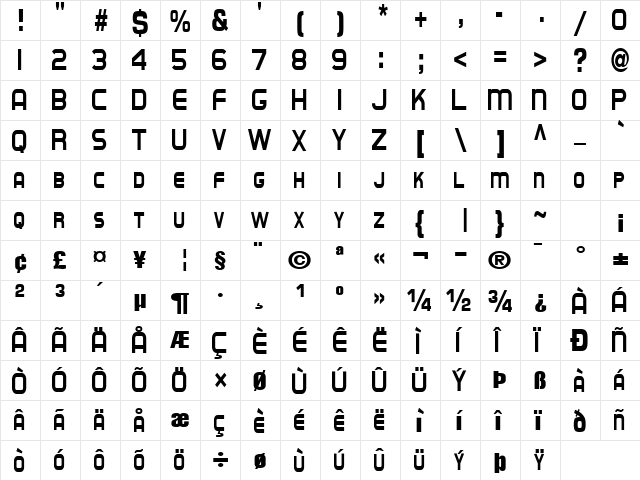
Burning Regular Font Preview
Burning Regular
Design Context for Burning Typeface
Burning offers clean, dependable letterforms without strong stylistic allegiance, making it a practical choice for designers who need flexibility.
Pro Tip: Use Burning in both headline and body roles to test its range before committing to a single application.